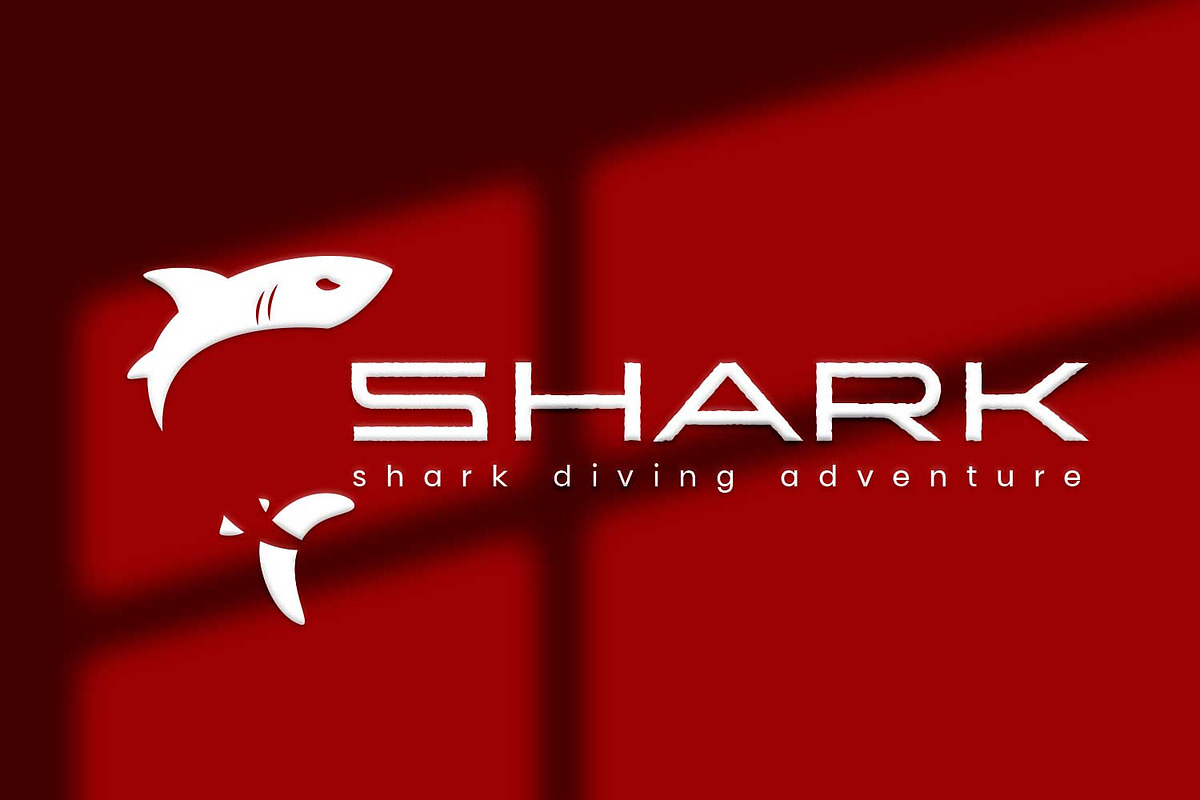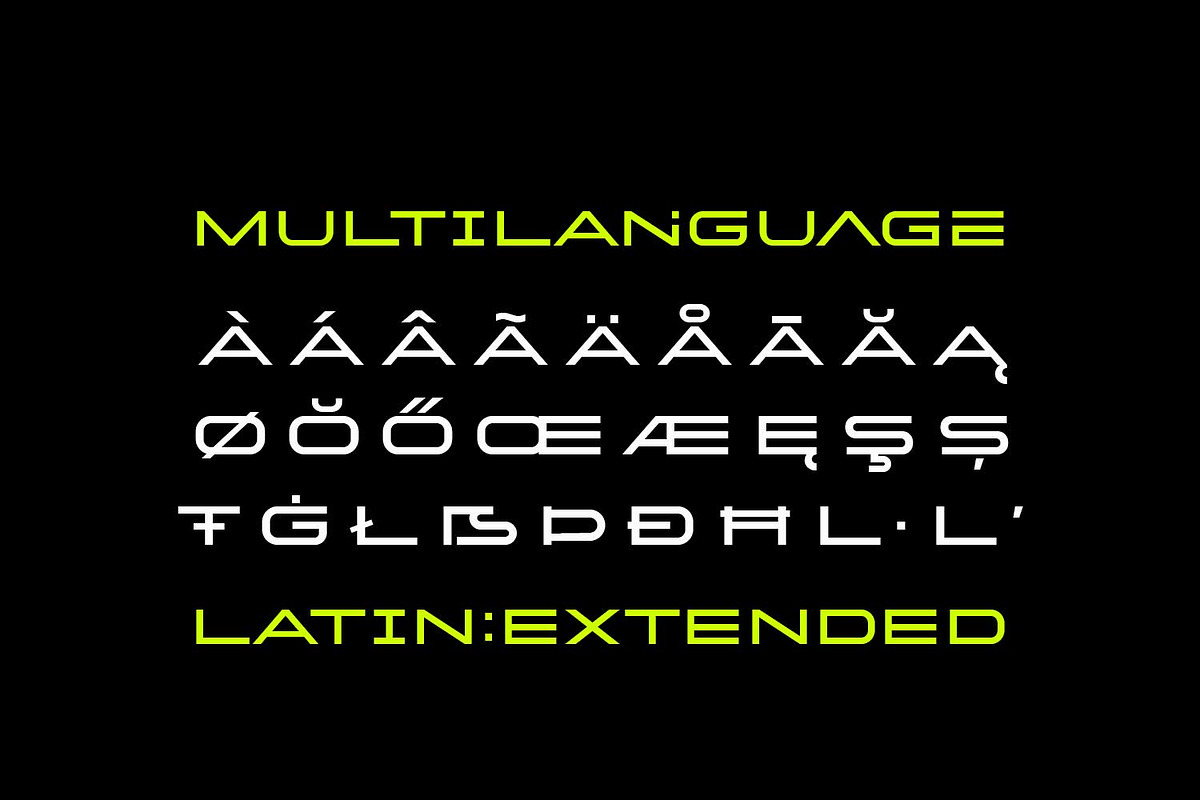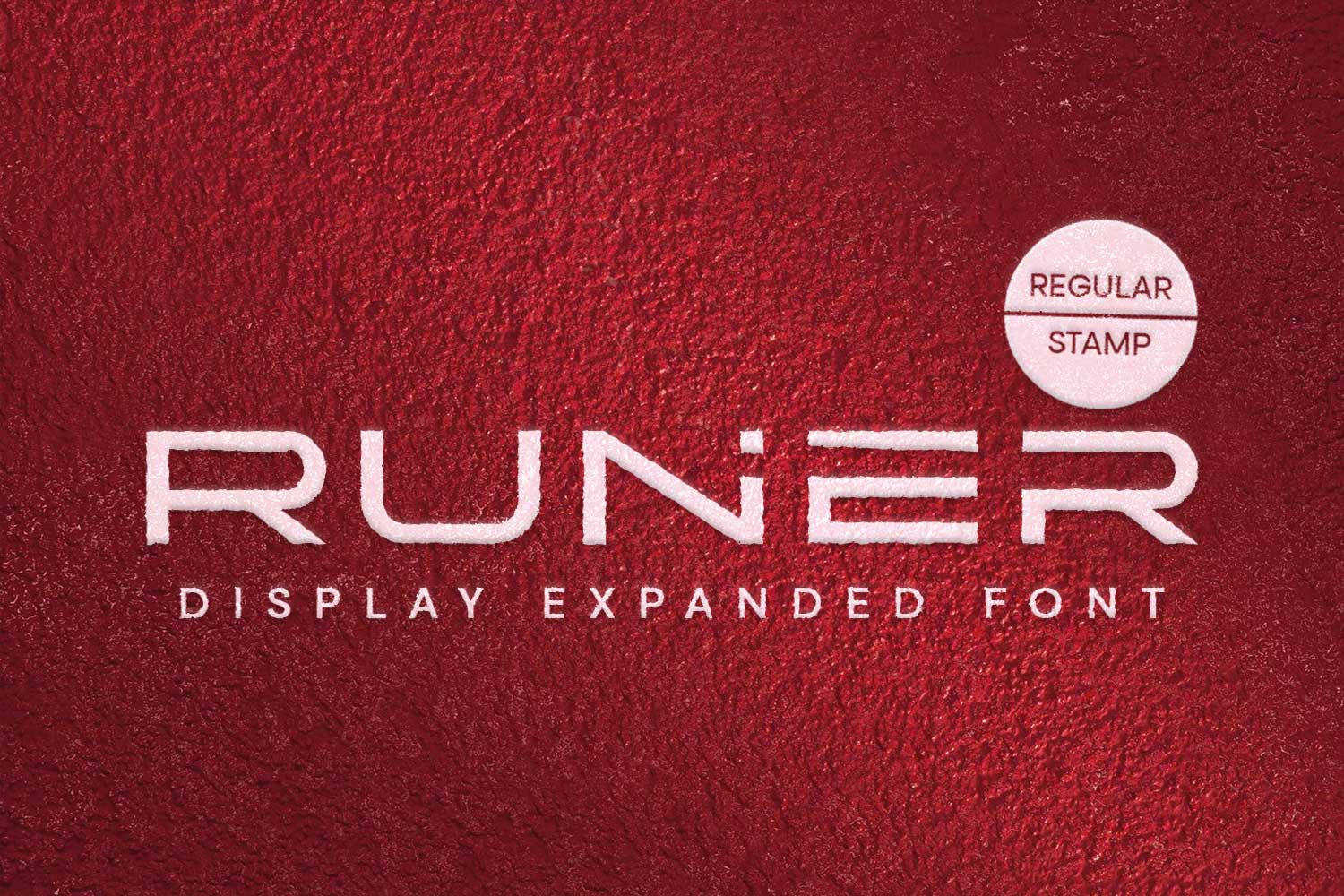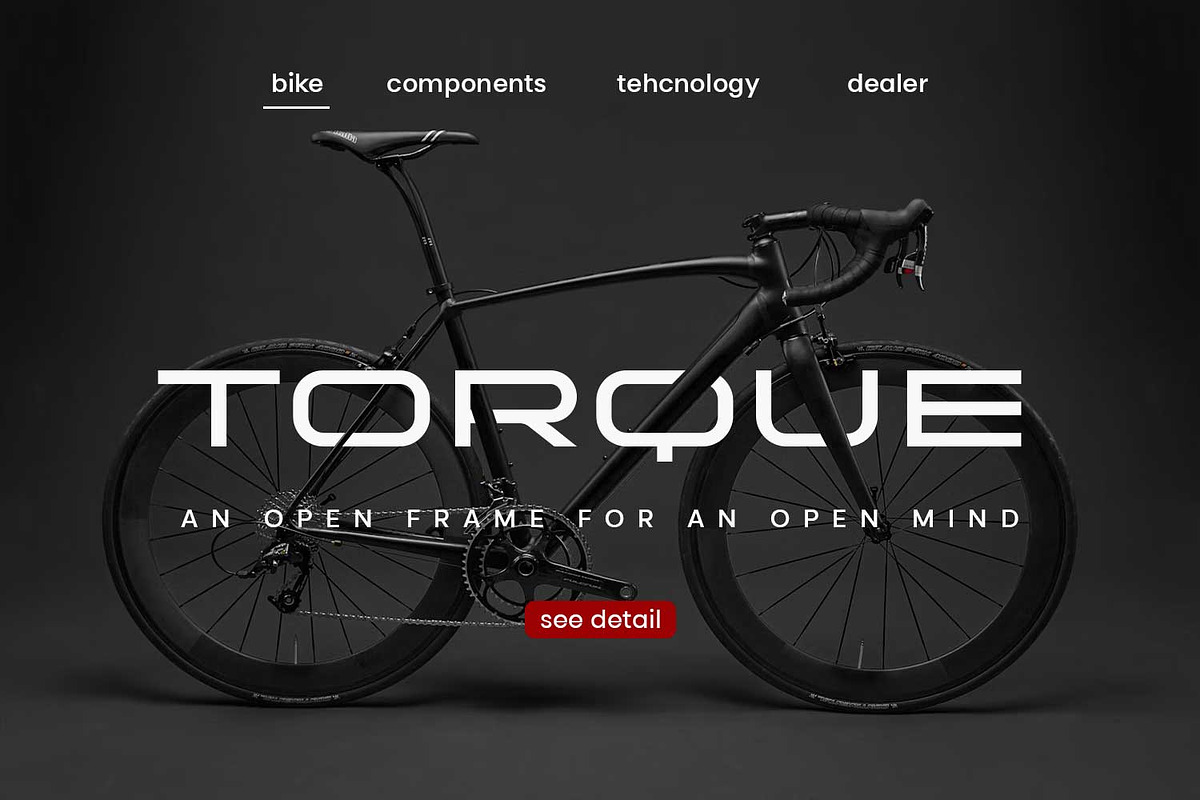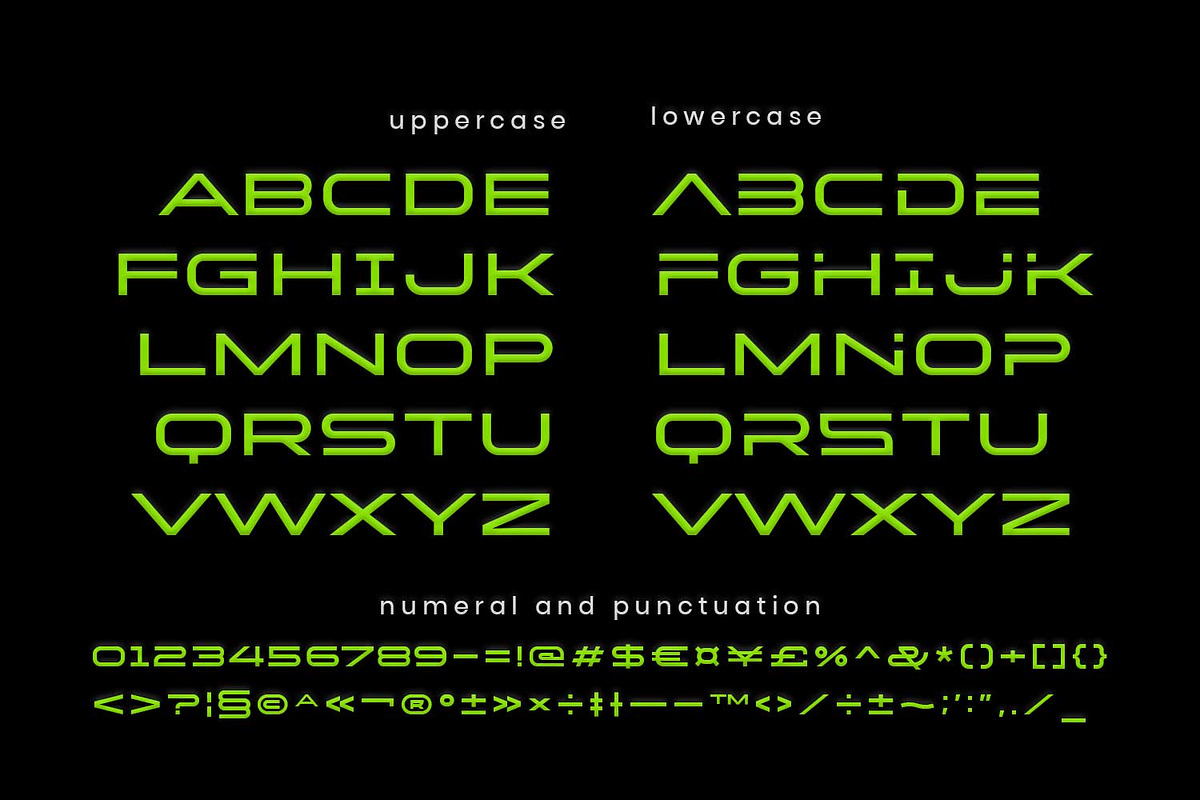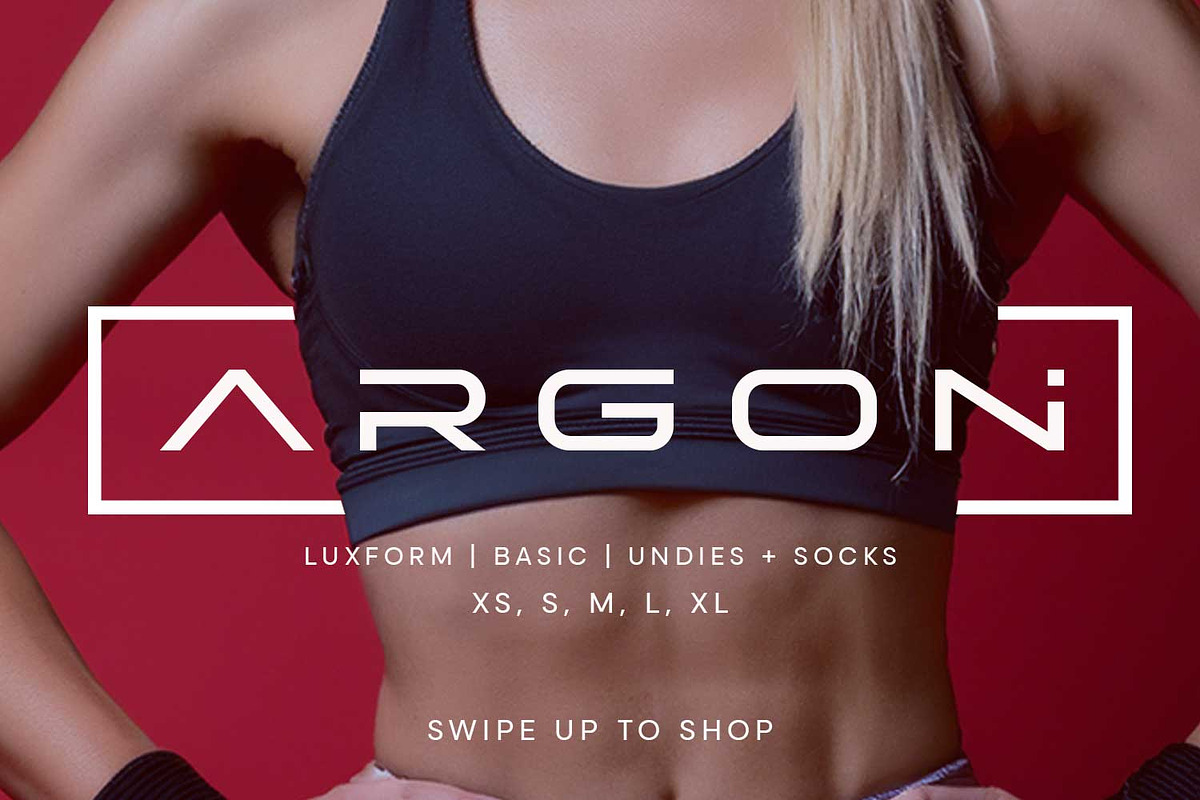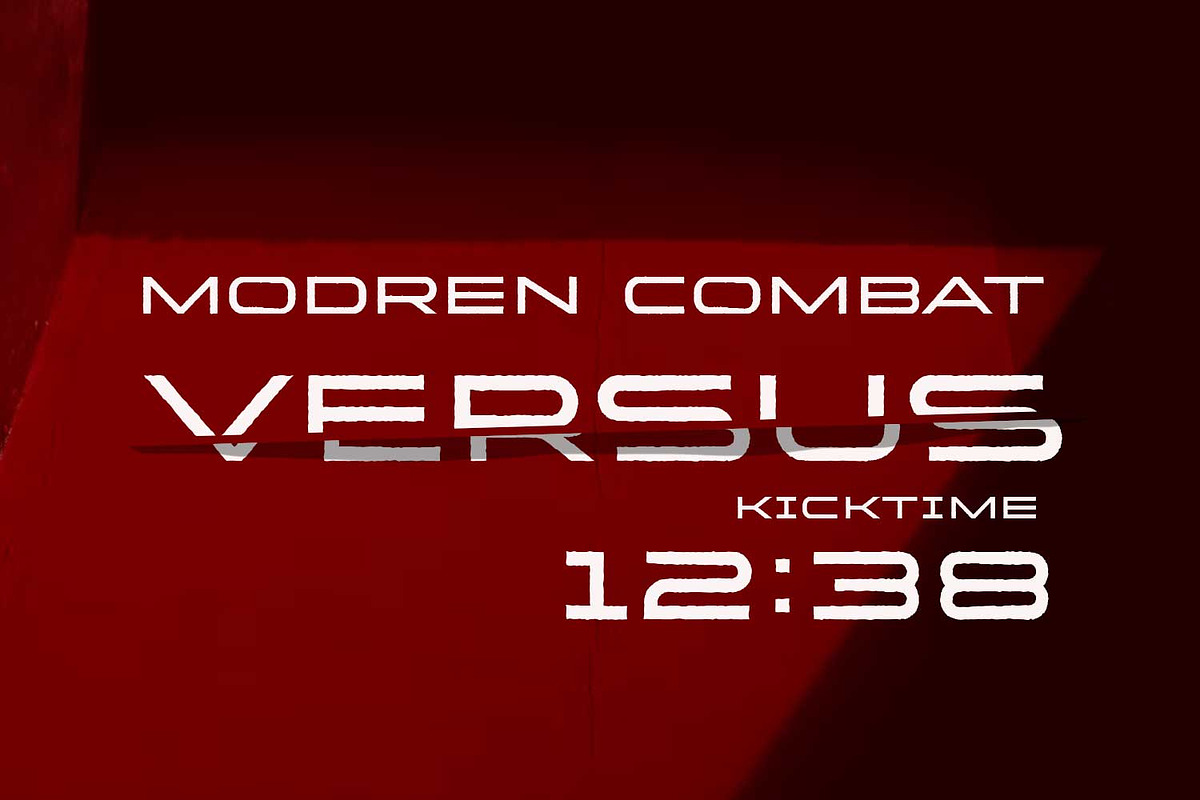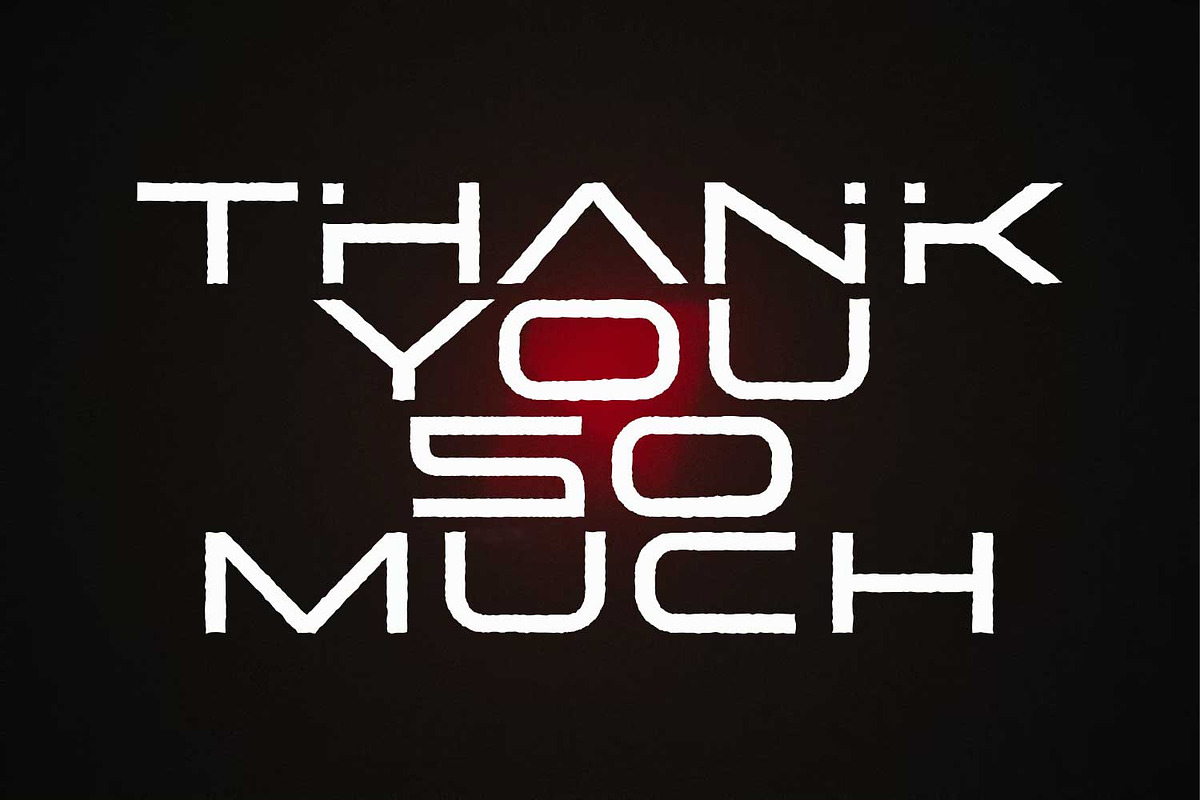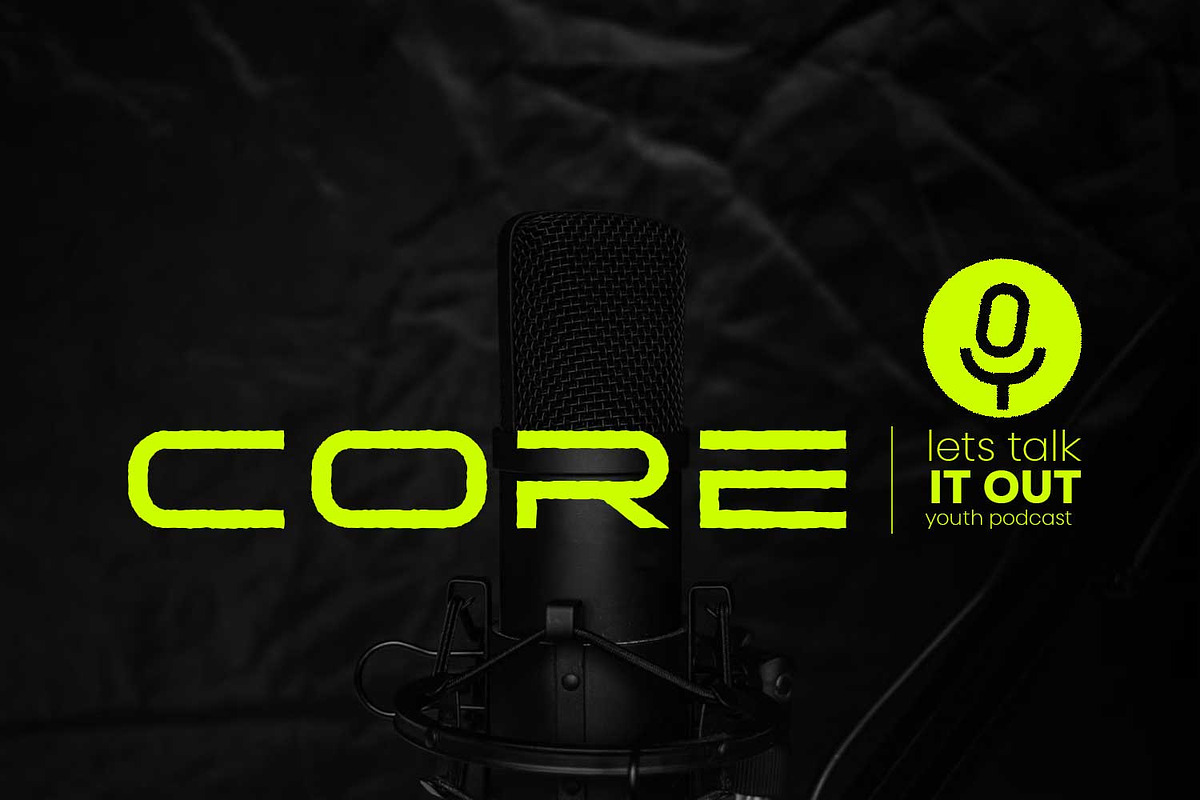
Runer - Expanded display font
RUNER is a high-impact display font built for speed, strength, and modern performance. With its expanded letterforms and angular cuts, RUNER captures the spirit of motion: bold, fast, and forward-thinking. The design is clean but never quiet, making it the perfect match for sport brands, cycling gear, activewear, or tech-driven visuals.
It comes in two dynamic styles: Regular for a clean, sleek look, and Stamp for a gritty, worn-in finish that adds character and edge. With full Latin Extended support, RUNER is ready to go global whether you’re building a bold brand or racing ahead in your next creative project.